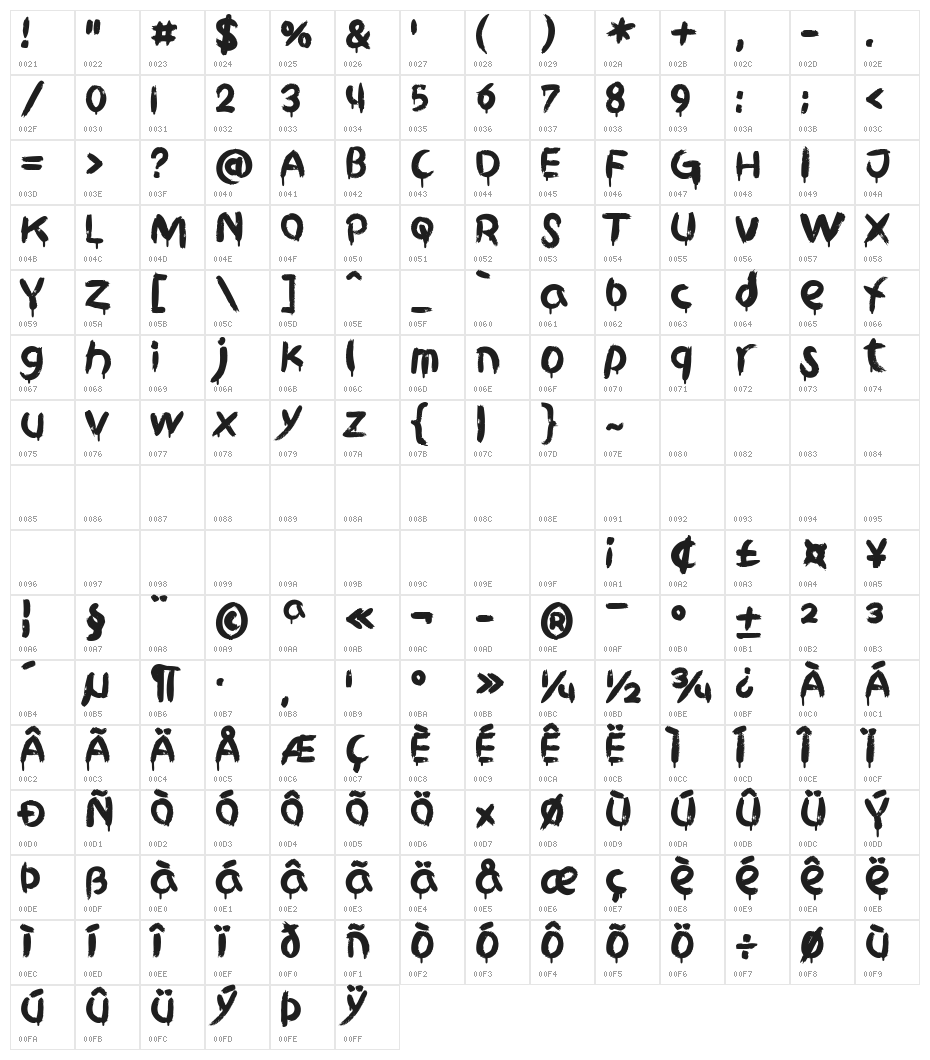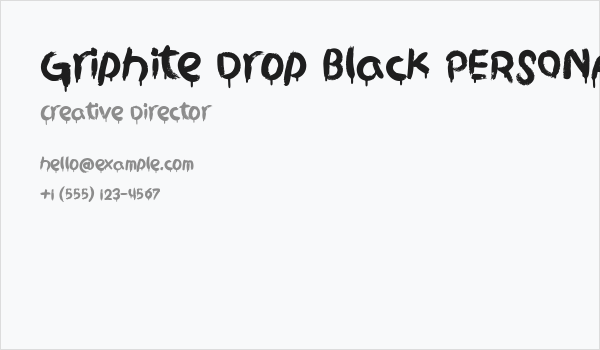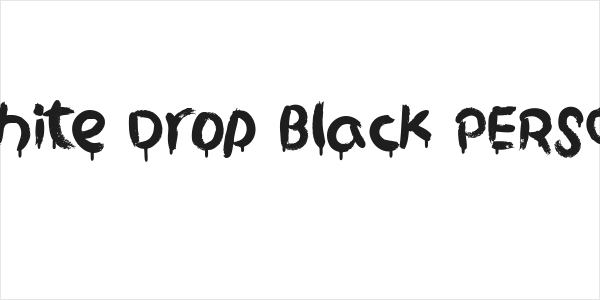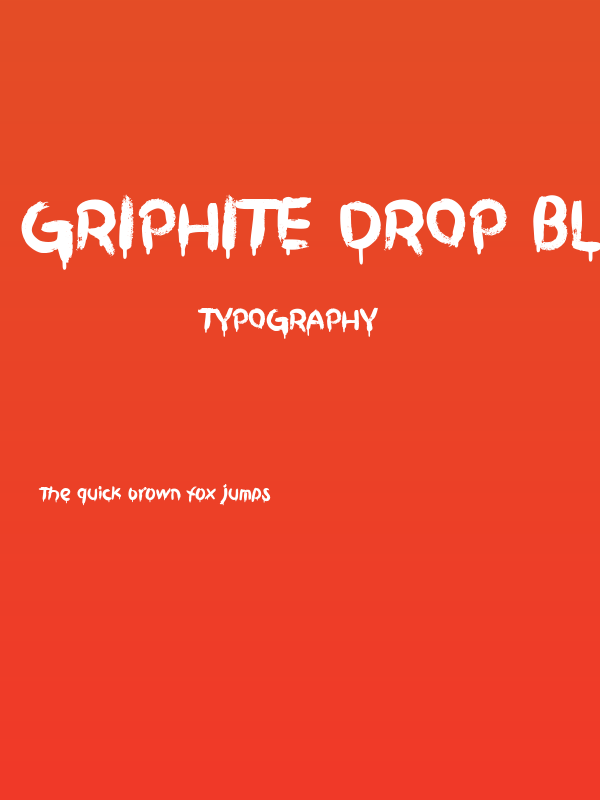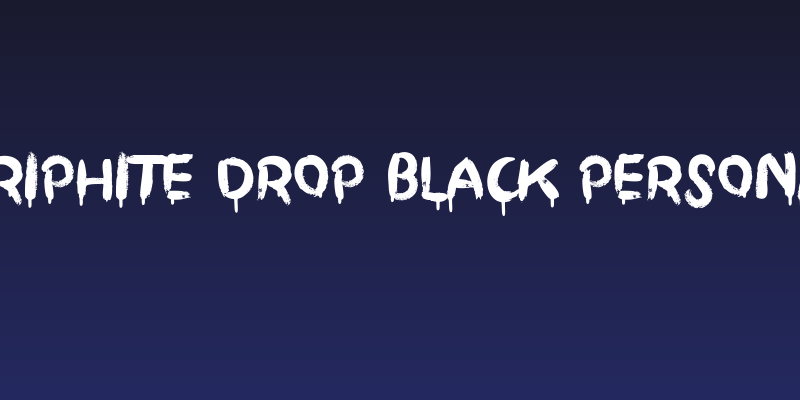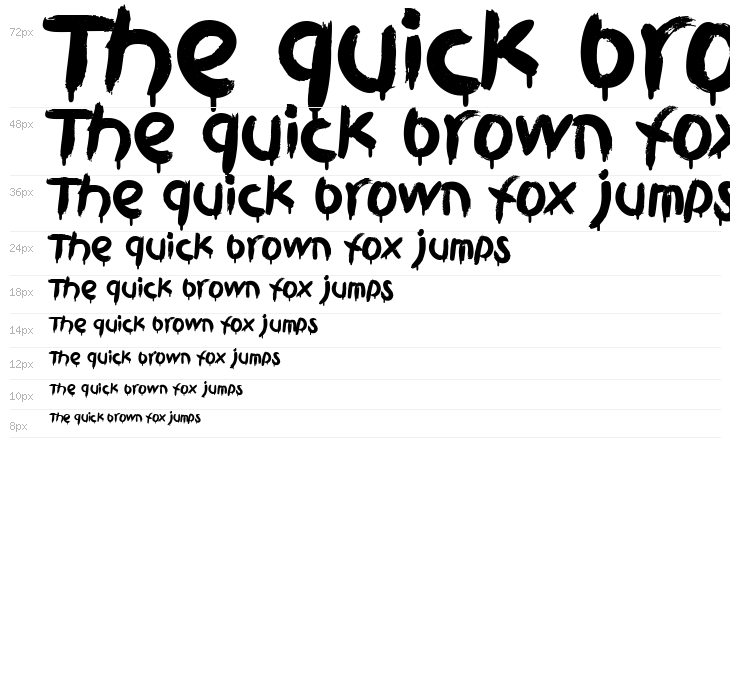
Griphite Drop Black PERSONAL Font
Griphite Drop Black PERSONAL Description
This font features a bold, graffiti-inspired style with a dripping effect that gives it an edgy and urban feel. The characters are thick and expressive, with uneven edges that add to the hand-painted aesthetic. The uppercase and lowercase letters maintain a consistent style, while the numbers and special characters complement the overall design. The font's unique appearance makes it stand out, ideal for projects that require a strong visual impact.
Overall StyleUrban, Edgy, Artistic
Use CaseHeadlines, Posters, Logos
Proposed ProjectsPerfect for street art designs, music album covers, event posters, and urban-themed branding.